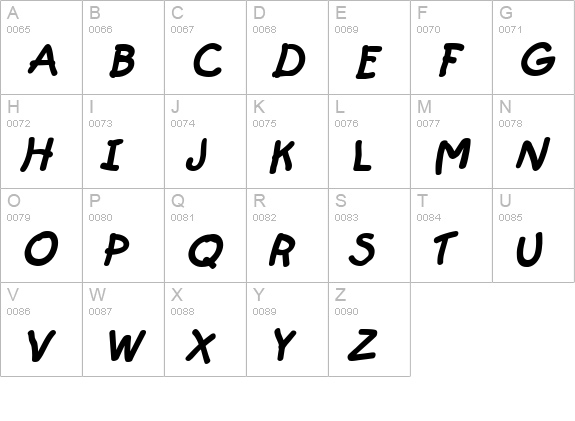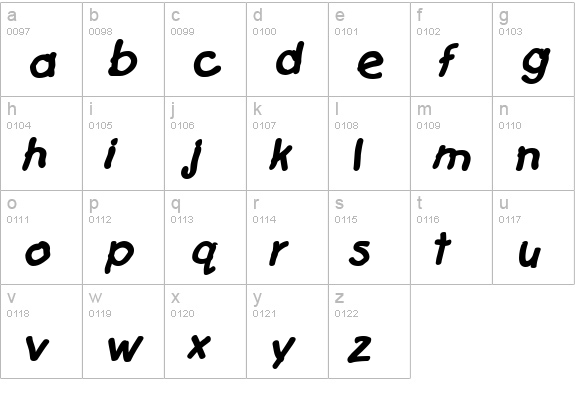
Catchup BoldItalic Font Details
Catchup BoldItalic font is a striking and dynamic typeface that combines boldness with elegance. With its unique blend of bold strokes and italicized flair, this font is perfect for making a bold statement in any design project. Whether you're looking to add a touch of sophistication to your branding, marketing materials, or creative projects, Catchup BoldItalic font is sure to make a lasting impression. Best of all, this font is available for free download at FontsMarket.com. With just a few clicks, you can enhance your designs with the eye-catching style of Catchup BoldItalic font without breaking the bank. Download it today and unleash your creativity with this versatile and stylish typeface.